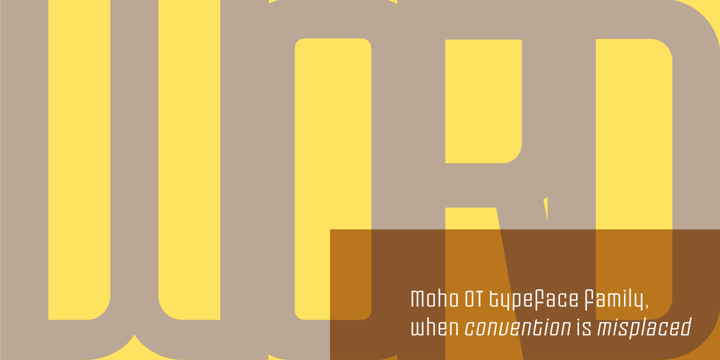
La familia tipográfica Moho fue diseñada por John Moore y publicada por John Moore Type Foundry. Moho contiene 24 estilos y opciones de paquete familiar.
Moho is a broad family of types inspired by the burgeoning modernism of the early twentieth century. Moho introduces an unconventional style in the form of his glyphs which aims to impregnate the text compounds thus a distinctive aesthetic sobriety and elegance while creating a flow of practical reading. The Moho family consists of a wide range of various weights. Thought for innovative text composition, Moho covers all shades of Medium, Regular, Light, ExtraLight to delicate Thin. Moho has a square shape letter style, provided with a competent OpenType programming for Moho OT family and basic functions for Moho Std family. Among the family characteristics OT has features such as small caps for letters and numbers, stylistics alternates, swash letters where "t" is extend over others, giving the typeface that particular style ideal for headlines, ligatures for pairs and triplets of letters, fractions and ordinals. In addition, each comes with its weight set italics. Moho has a character set to compose texts in European languages ​​of east and west with over 600 glyphs. Moho is a letter in resonance for general topics like sports, art. technology trends, fashion, tourism and transport. There exist two groups of Moho Family OT = Full OpenType Features and full set of glyphs Std= Basic OpenType Features and less glyphs
Moho
Acerca de John Moore Type Foundry
John Moore Type Foundry specializes in creating fonts, since 1974, to meet the needs of creativity, novelty, originality and quality. Our range of offerings covers reading fonts, display fonts and dingbats. Mr. Moore has been invited to the Biennial Ibero American of Design of Madrid and has won many awards at the Latin American Biennial of Typography "Tipos Latinos". His work has been reviewed in many publications on typography and editorial design also in videos, magazines, books, web sites, blogs and exhibitions around the world.